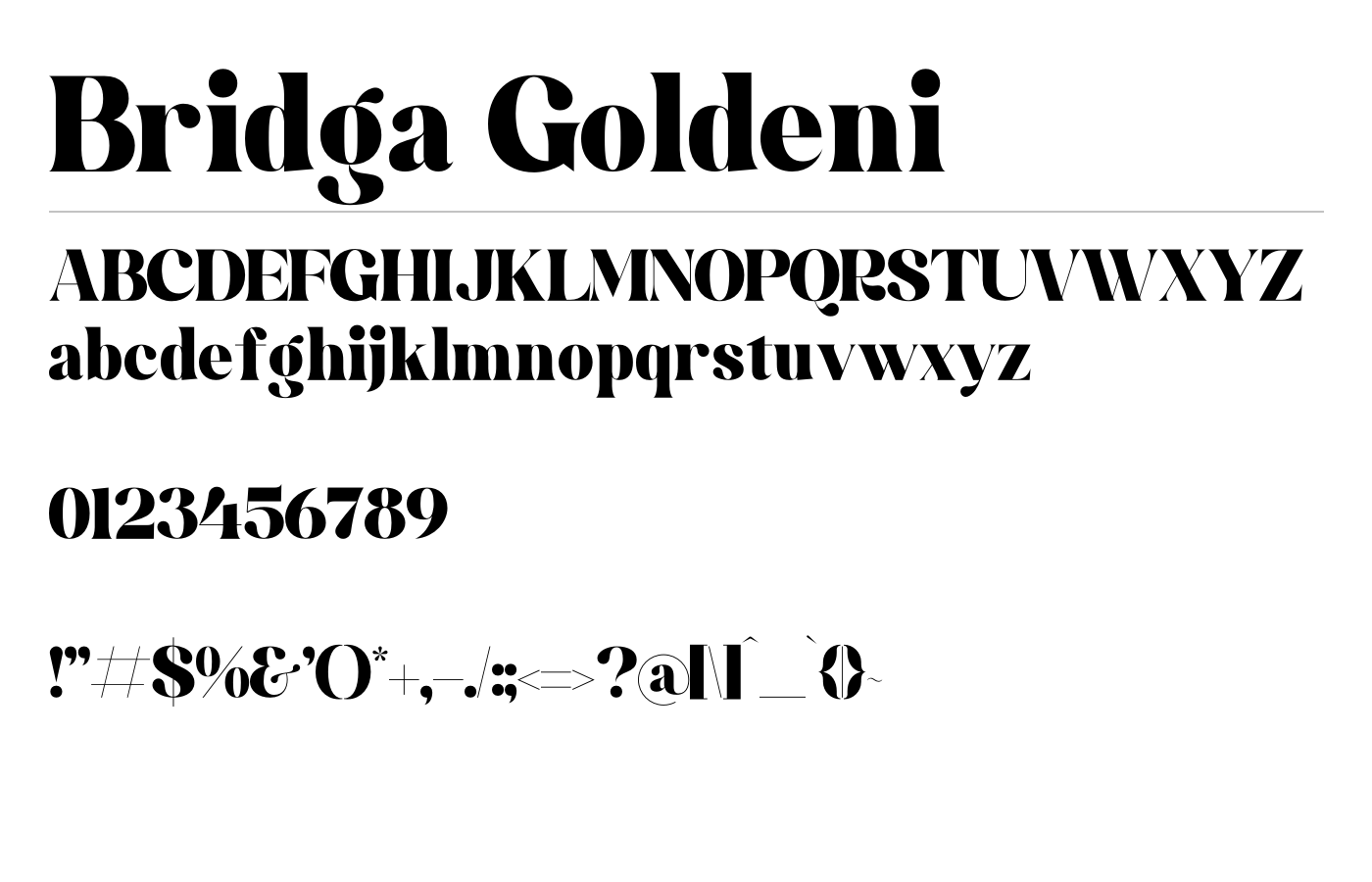
Bridga Goldeni is a bold serif typeface with strong contrast between thick and thin strokes, featuring elegant bracketed serifs and a classic, refined style. Its high weight, narrow proportions, and distinctive letterforms give it a sophisticated, luxurious feel, making it perfect for upscale branding, editorial headlines, and fashion packaging where a statement of elegance and authority is desired. This font combines timeless tradition with modern impact, ideal for designs that require both style and presence.
Bridga Goldeni Font
About Bridga Goldeni Font